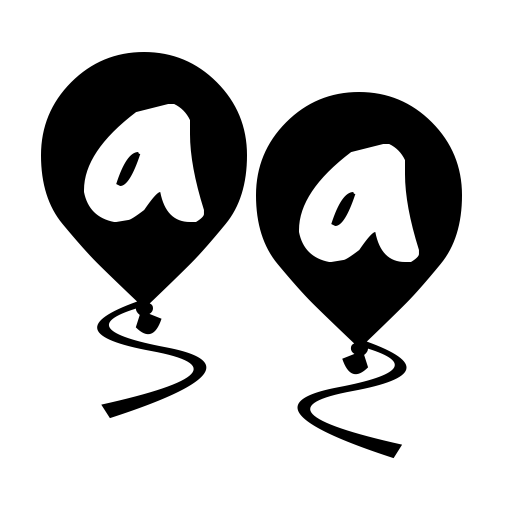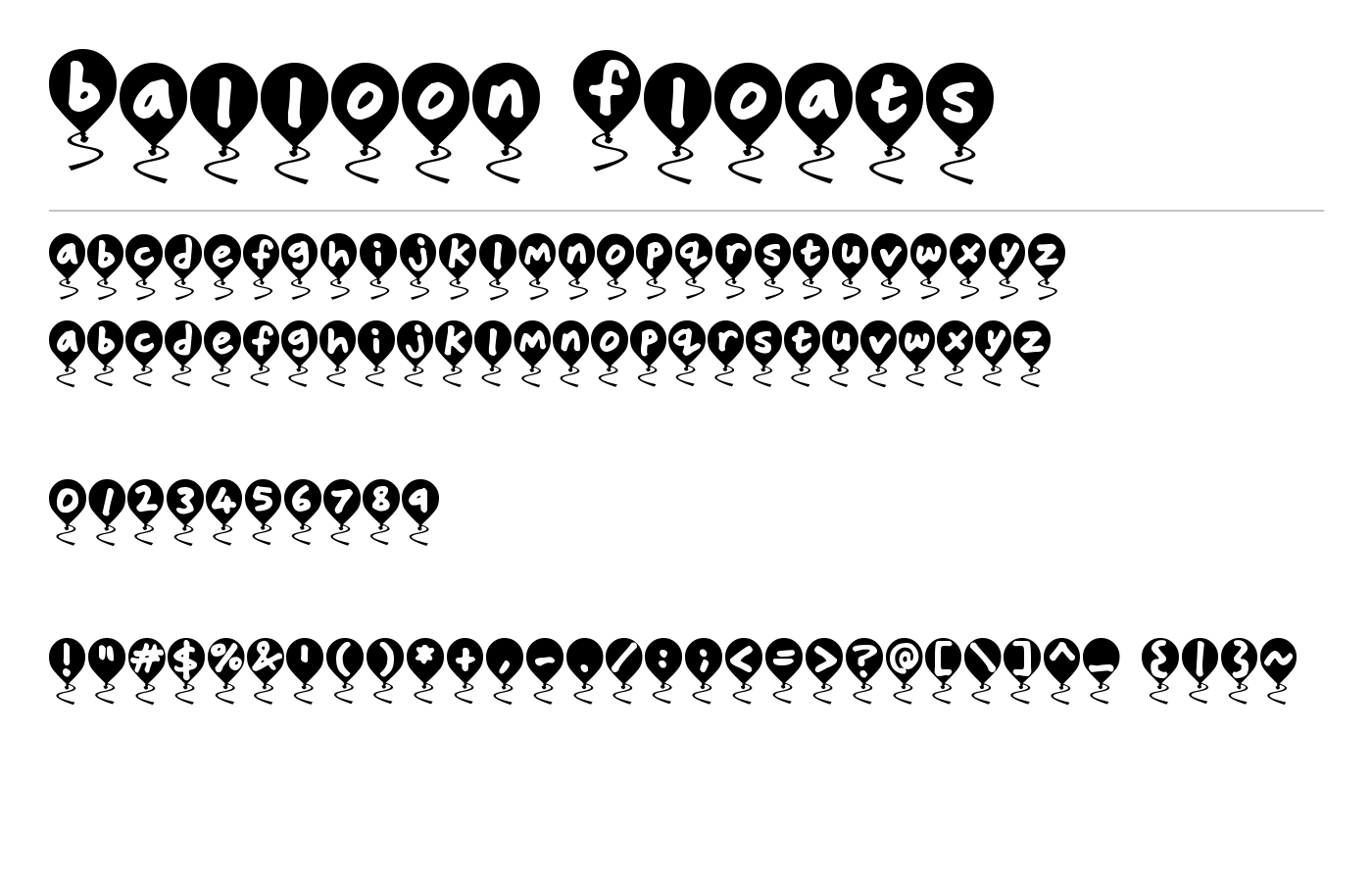
Balloon Floats is a playful and whimsical display font featuring letters inside balloon shapes, complete with dangling strings beneath each character. Its rounded, casual letterforms and bold weight create a fun, childlike vibe that’s perfect for party invitations, children’s books, and festive branding. This font works best in large sizes for headlines or logos where its joyful personality can truly shine.
Balloon Floats Font
About Balloon Floats Font